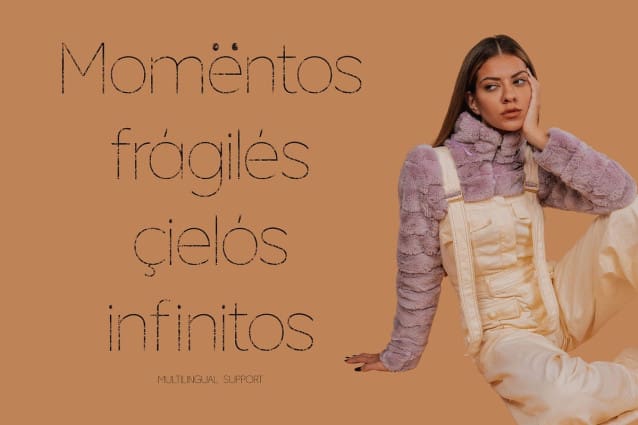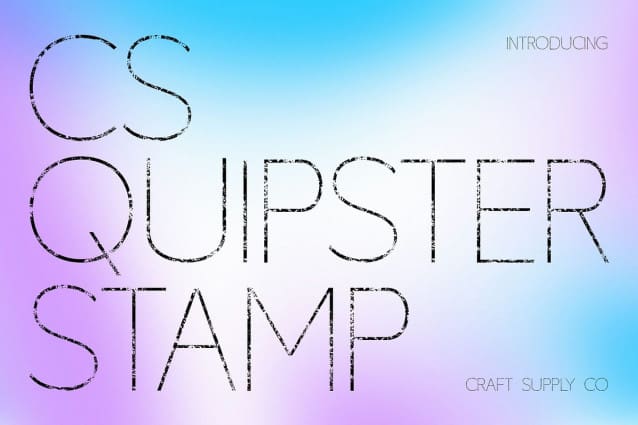
CS Quipster Stamp Font : Modern Minimalism with a Vintage Touch.Thin Geometric Sans Serif with Stamp Texture This is a modern thin sans serif font that blends geometric precision with handcrafted charm. Its clean and minimalist design conveys professionalism and sophistication, while the added stamp texture introduces a nostalgic, vintage character. The result is a balanced typeface that feels both contemporary and timeless perfect for designers seeking a subtle mix of modern clarity and rustic authenticity.
Geometric Precision for Modern Appeal Built on a foundation of clean lines and symmetrical forms, this font captures the essence of modern design. Its geometric structure creates an organized and harmonious look, making it ideal for branding, corporate identities, and editorial designs that value clarity and precision.
Stamped Texture for Vintage Character The textured, stamped effect adds a layer of personality and depth, transforming the font’s clean shapes into something tactile and expressive. This handcrafted texture gives each letter a slightly worn, organic quality, reminiscent of classic print techniques.
Versatile for Modern and Retro Designs This fonts fusion of sleek geometry and vintage texture makes it a versatile choice for diverse creative projects. From modern branding and minimalist packaging to retro posters and nostalgic merchandise, this font adapts beautifully across styles. With its refined structure and charming imperfection, delivers a perfect blend of modern sophistication and vintage soul.